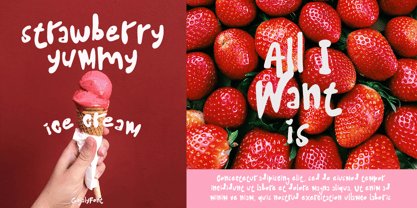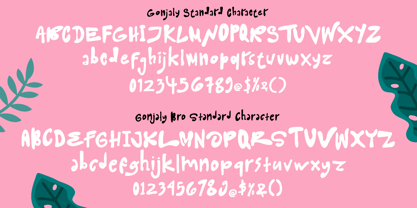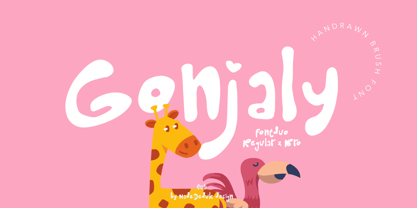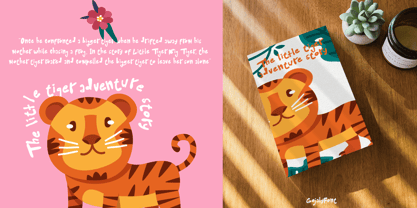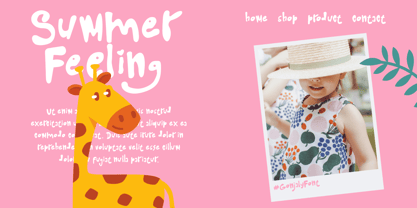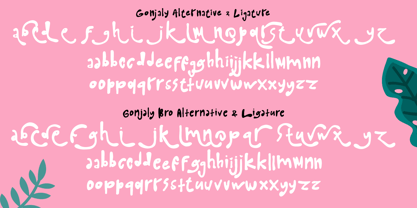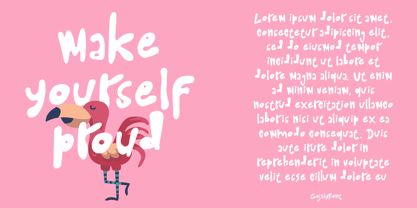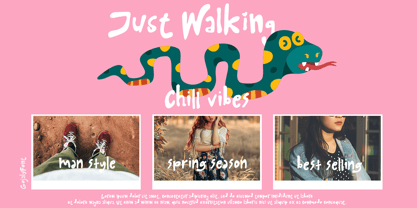
Gonjaly
by madeDeduk
The Gonjaly Font Family was designed by madededuk and published by madeDeduk. Gonjaly contains 2 styles and family package options.
Introducing Gonjaly is a cute hand drawn come with two style Regular - Bro font style. Super easy to use, you can access these via using OpenType capable software ( like Photoshop, Illustrator, Indesign). You can also access them if you use a Mac and use font book and Textedit. And will be perfect for book, title branding, product packaging, invitation, quotes, label, poster, logo etc.